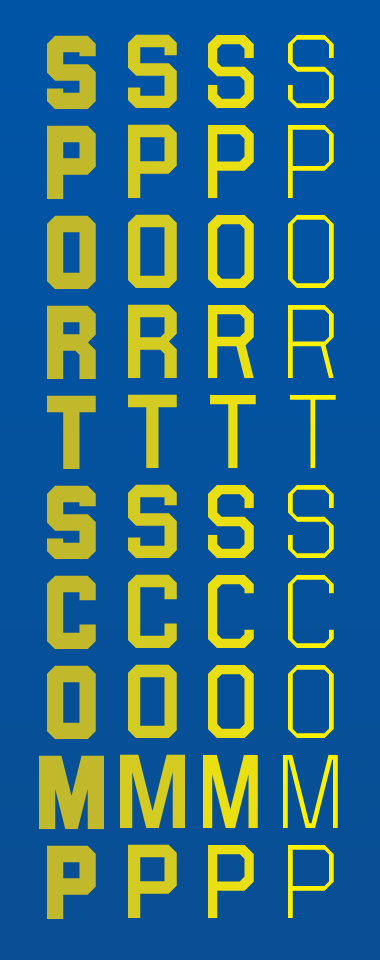
Academician Junior
Academician: 1. a member of an association or institution for the advancement of arts, sciences, or letters. 2. a follower or promoter of the traditional trends in philosophy, art, or literature.
Academician Senior
Academician Junior
Academician Sophomore
Academician Freshman